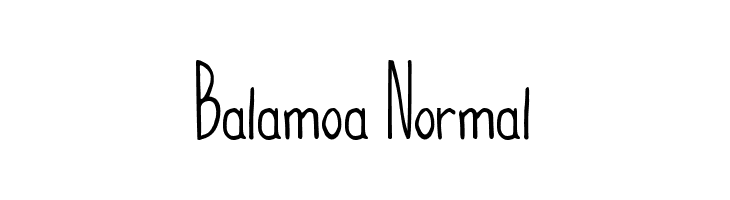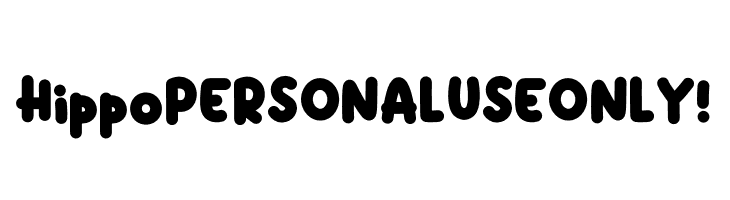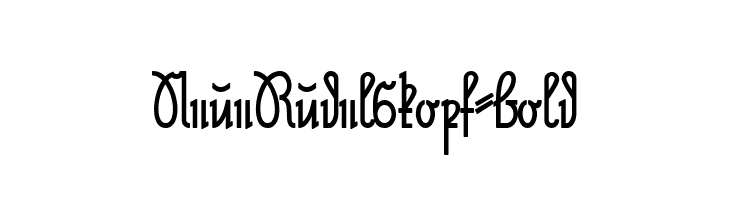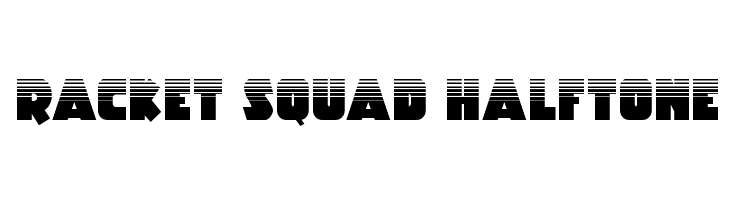
A playful, bold font with rounded, bubbly characters ideal for fun and informal projects.
A bold, decorative font with intricate loops and curves, perfect for artistic projects.
A bold, decorative font with vintage and modern elements, ideal for standout designs.
A bold, italicized font with a futuristic and dynamic style.
An elegant, flowing script font with graceful curves and a sophisticated style.
A bold, geometric font with a halftone effect and strong visual contrast.
A bold, geometric font with a three-dimensional, futuristic style.
A modern, geometric font with angular, italicized characters.
Elegant handwritten script font.
A modern, geometric font with a futuristic and structured design.